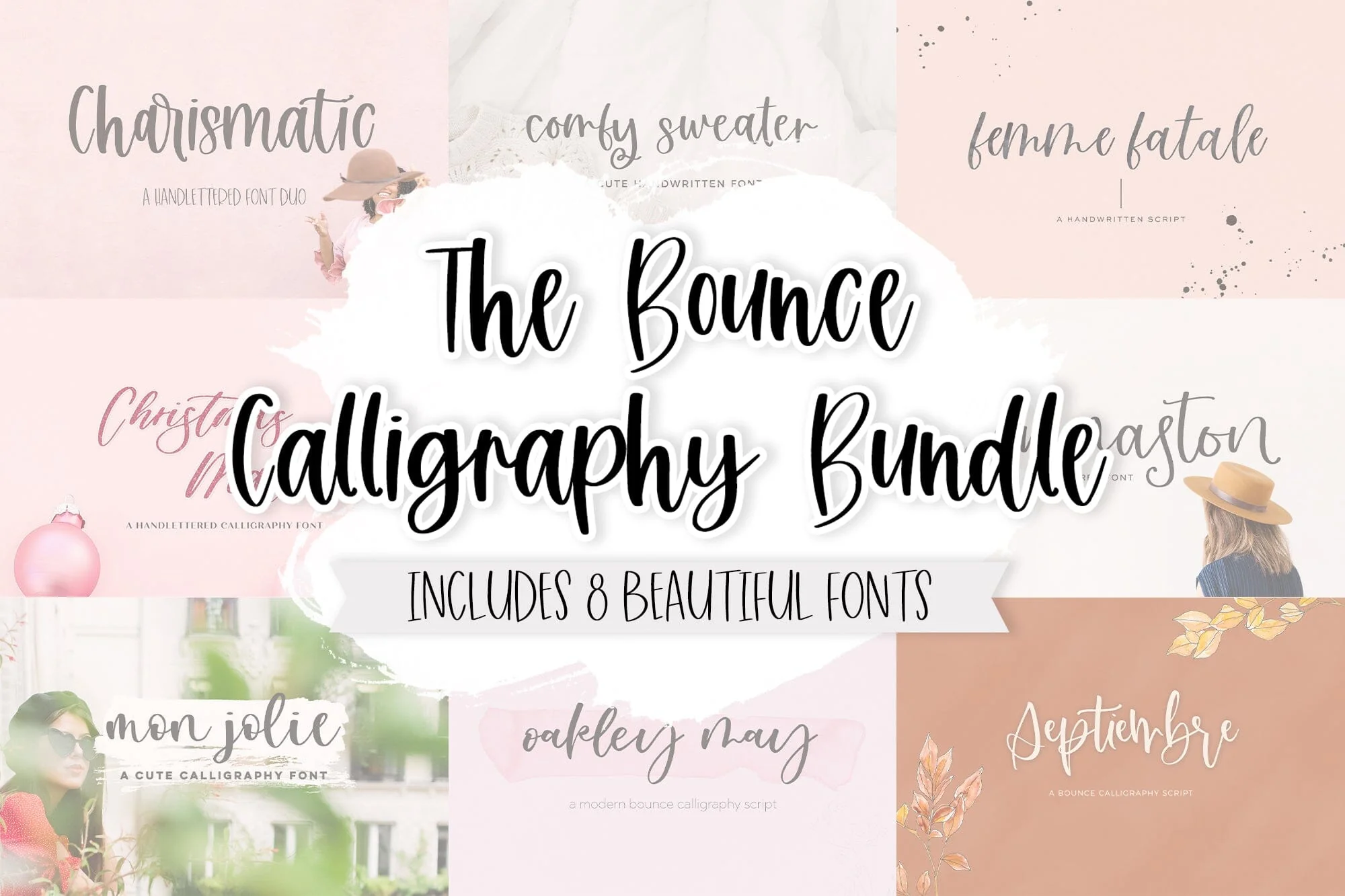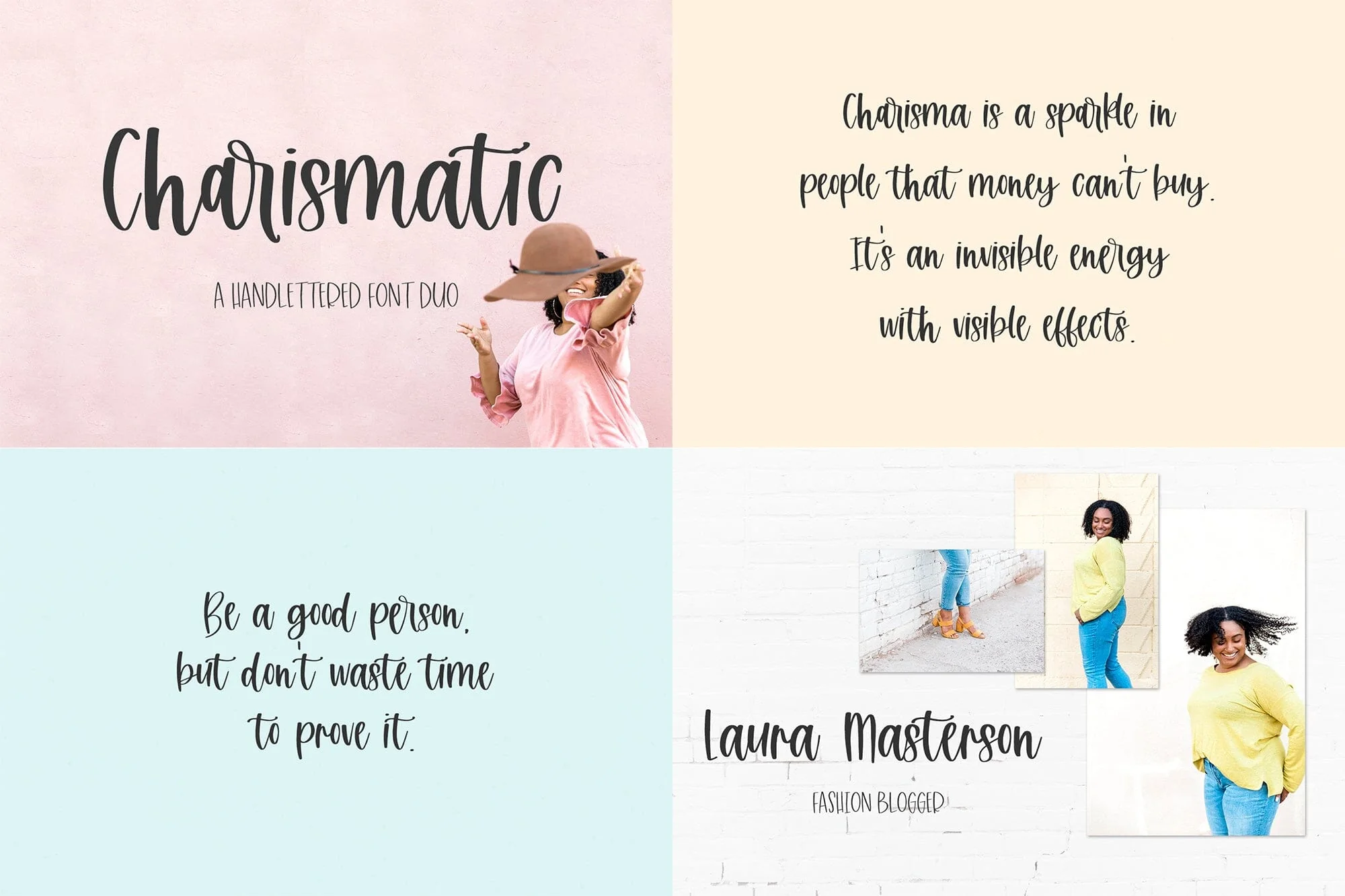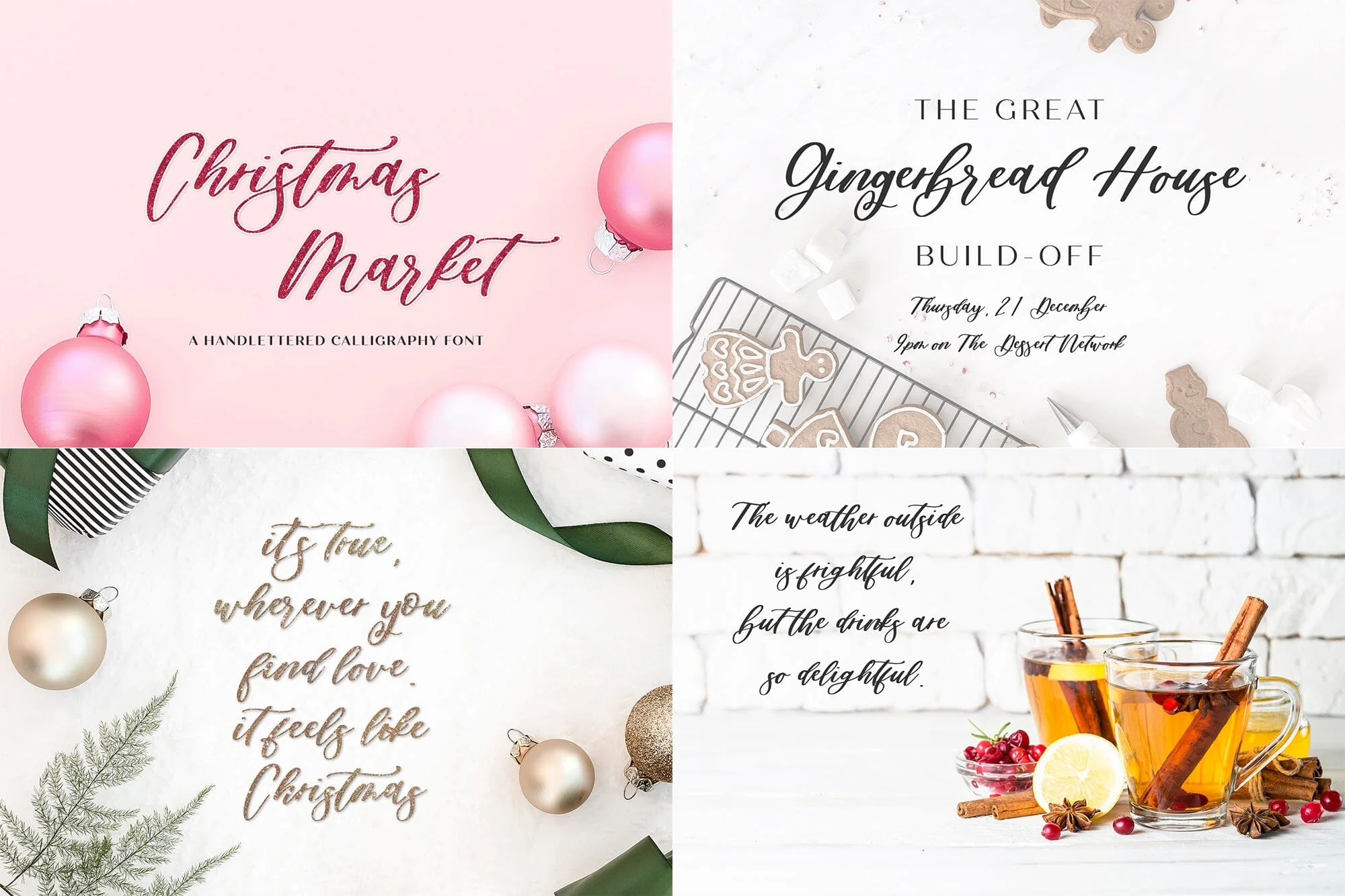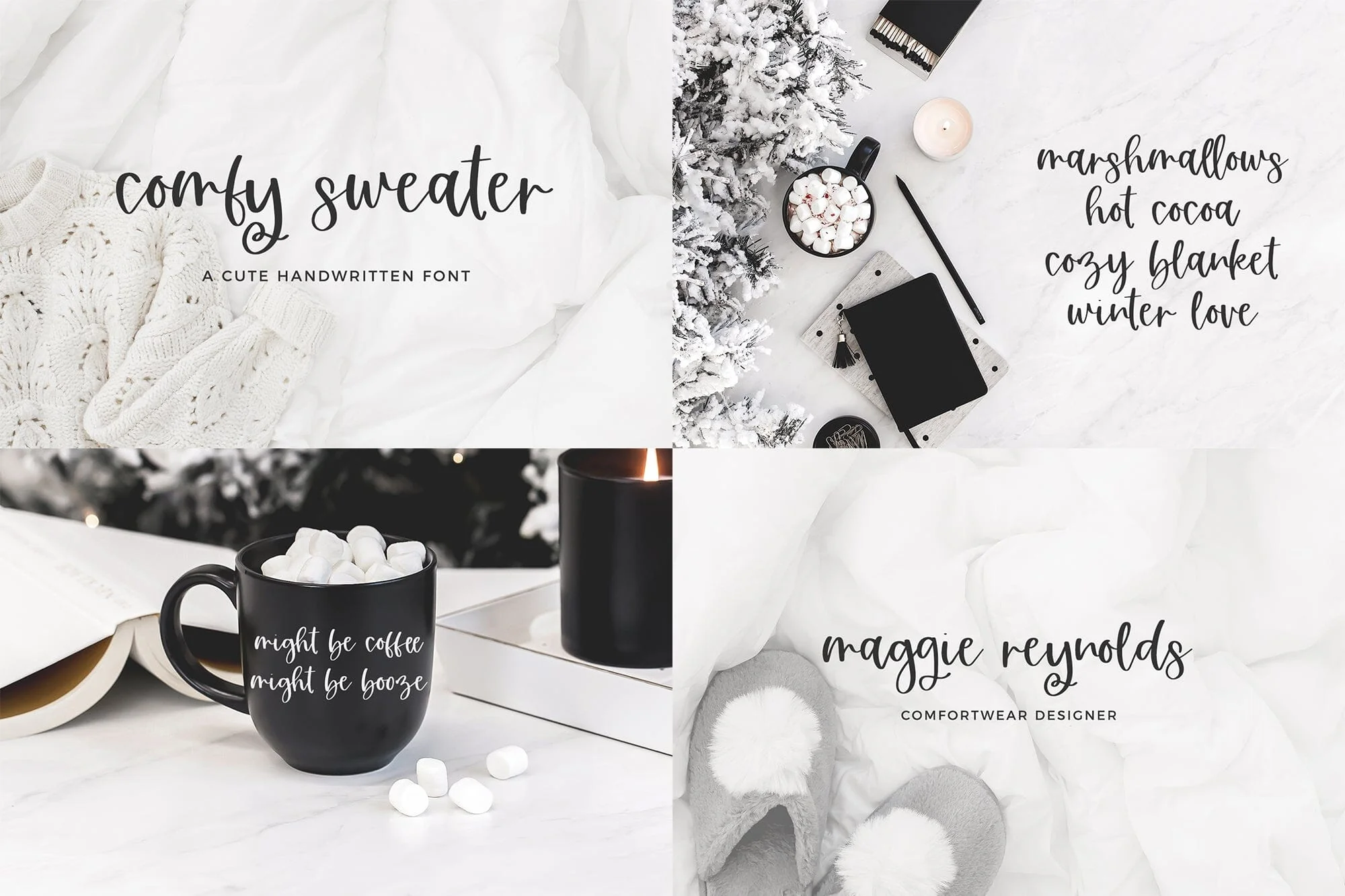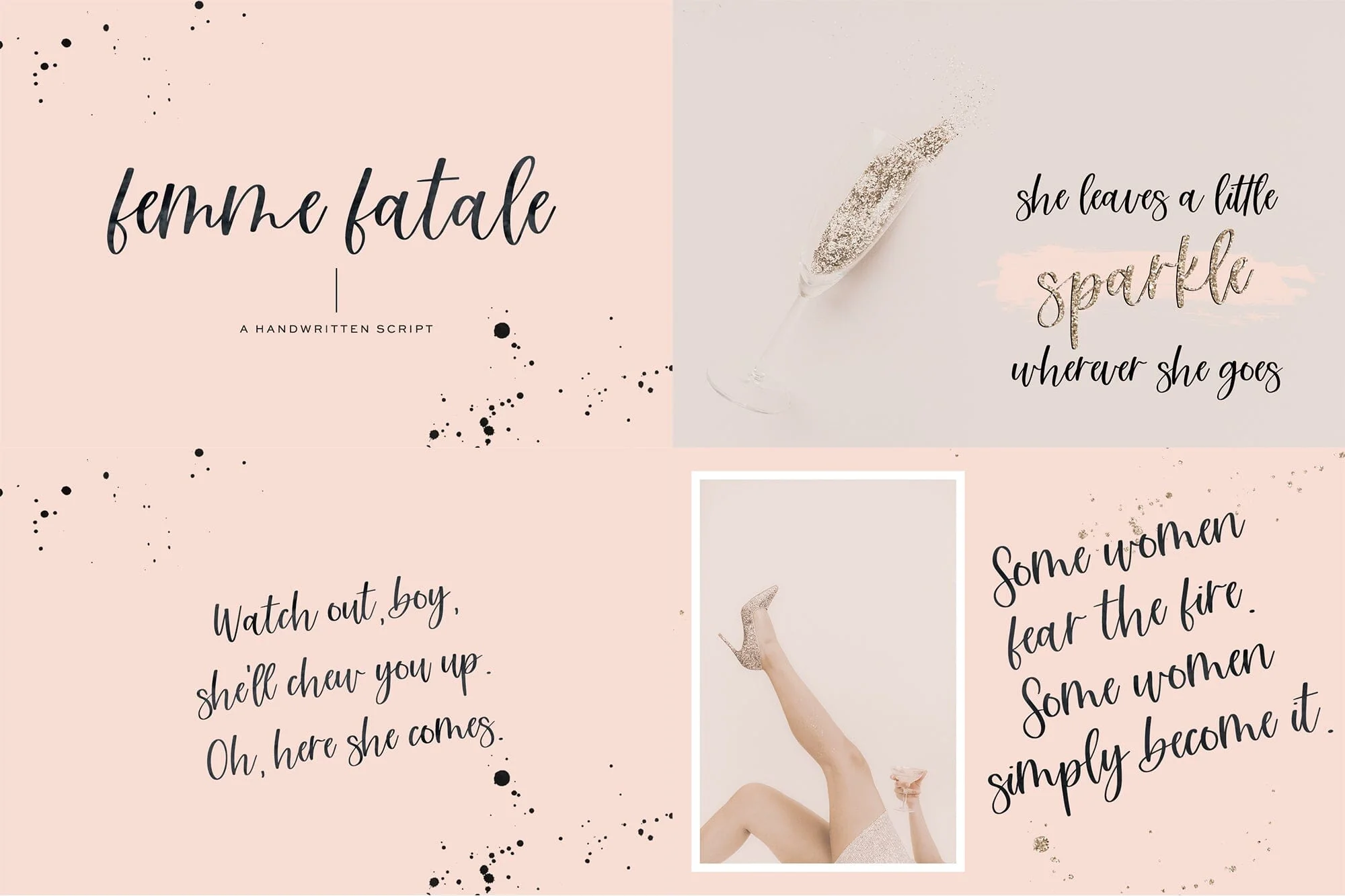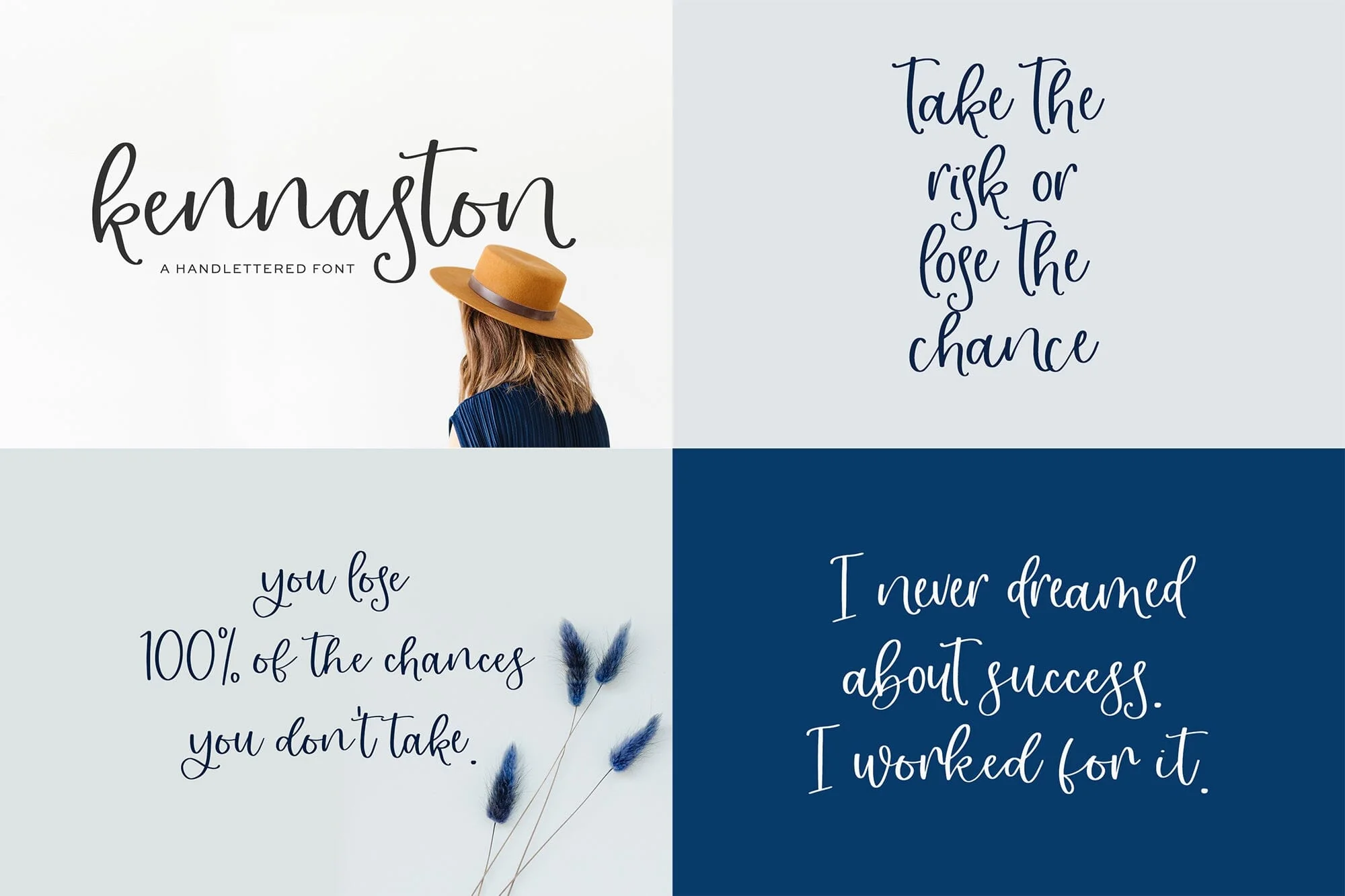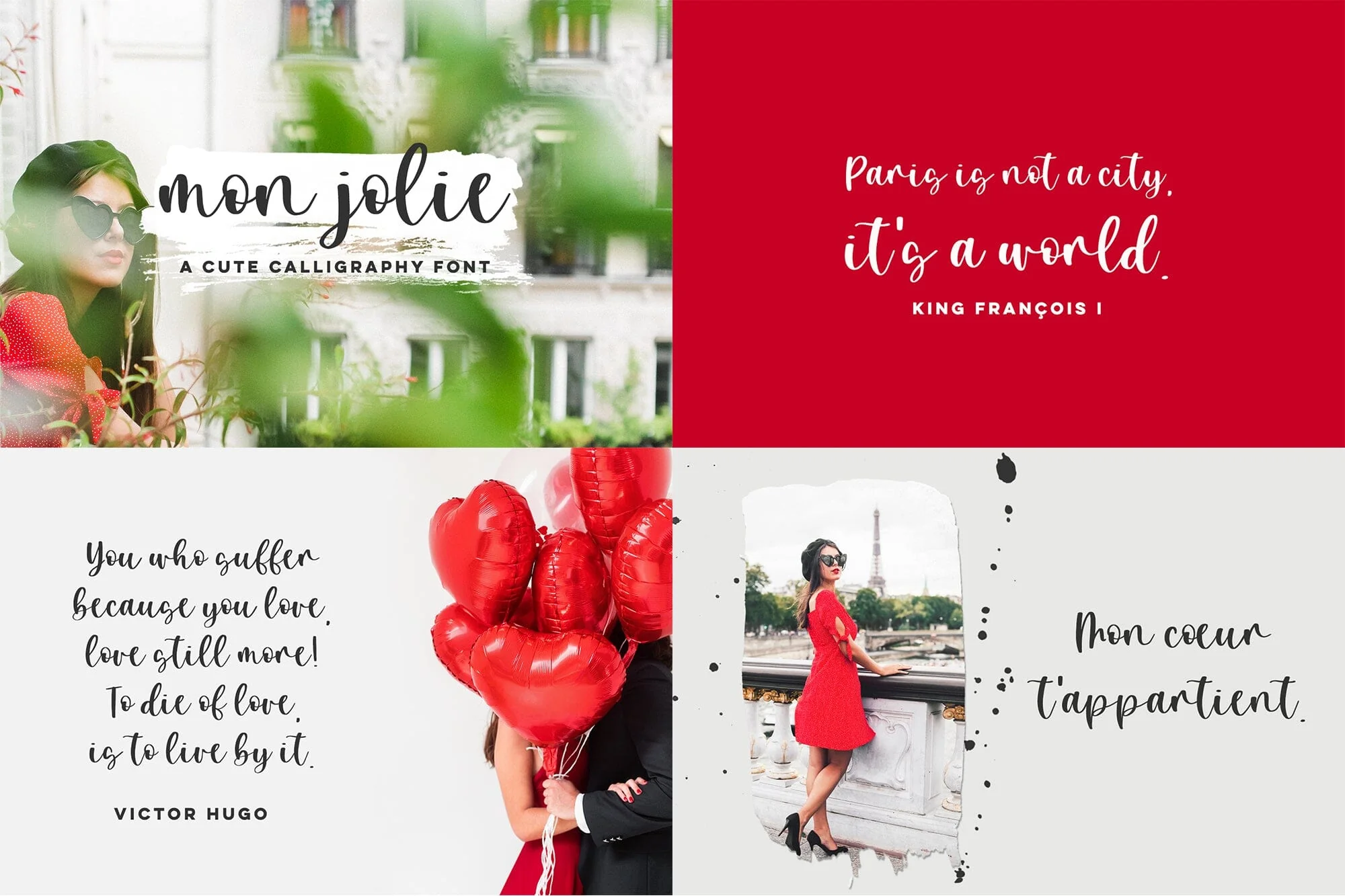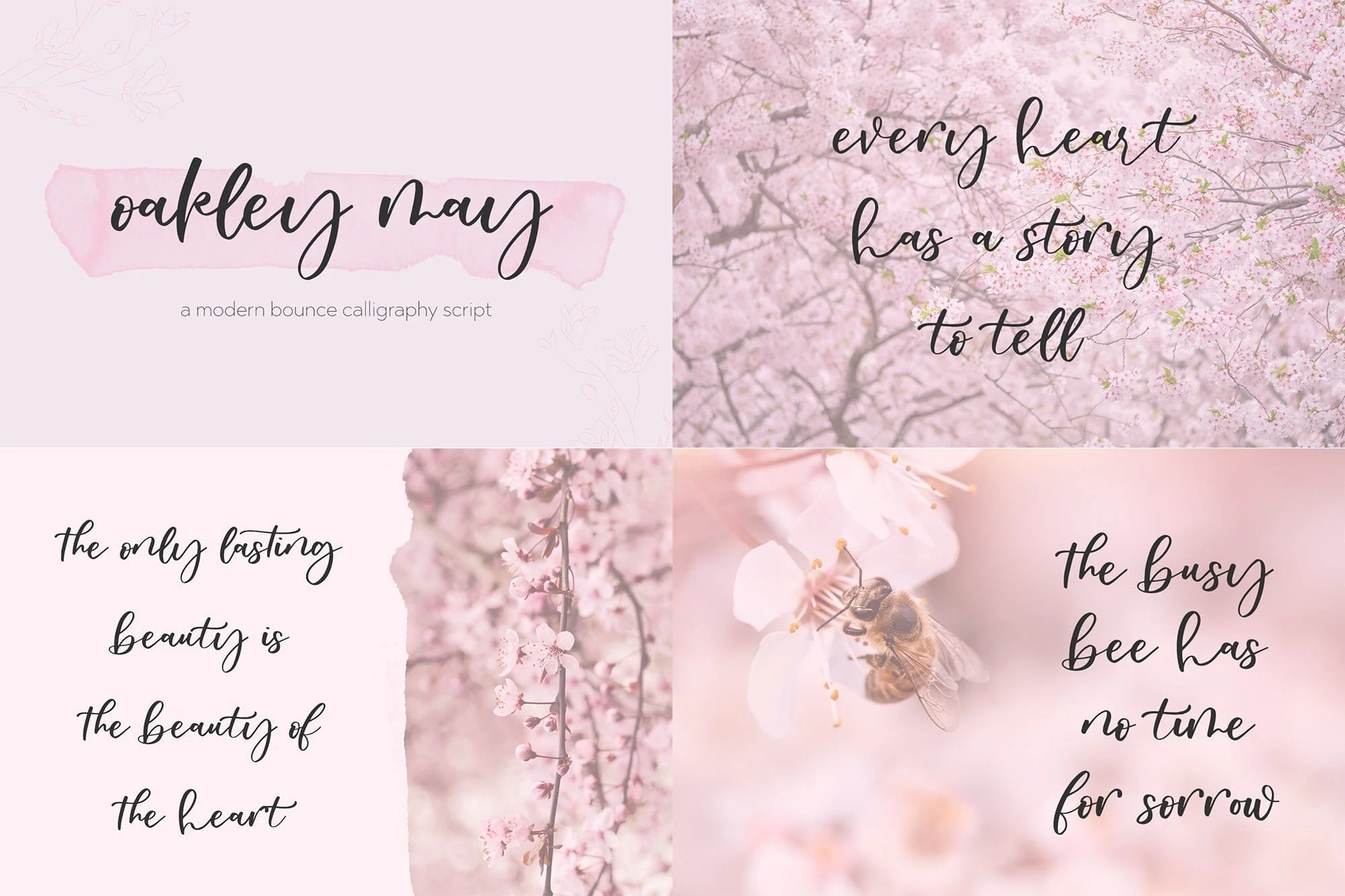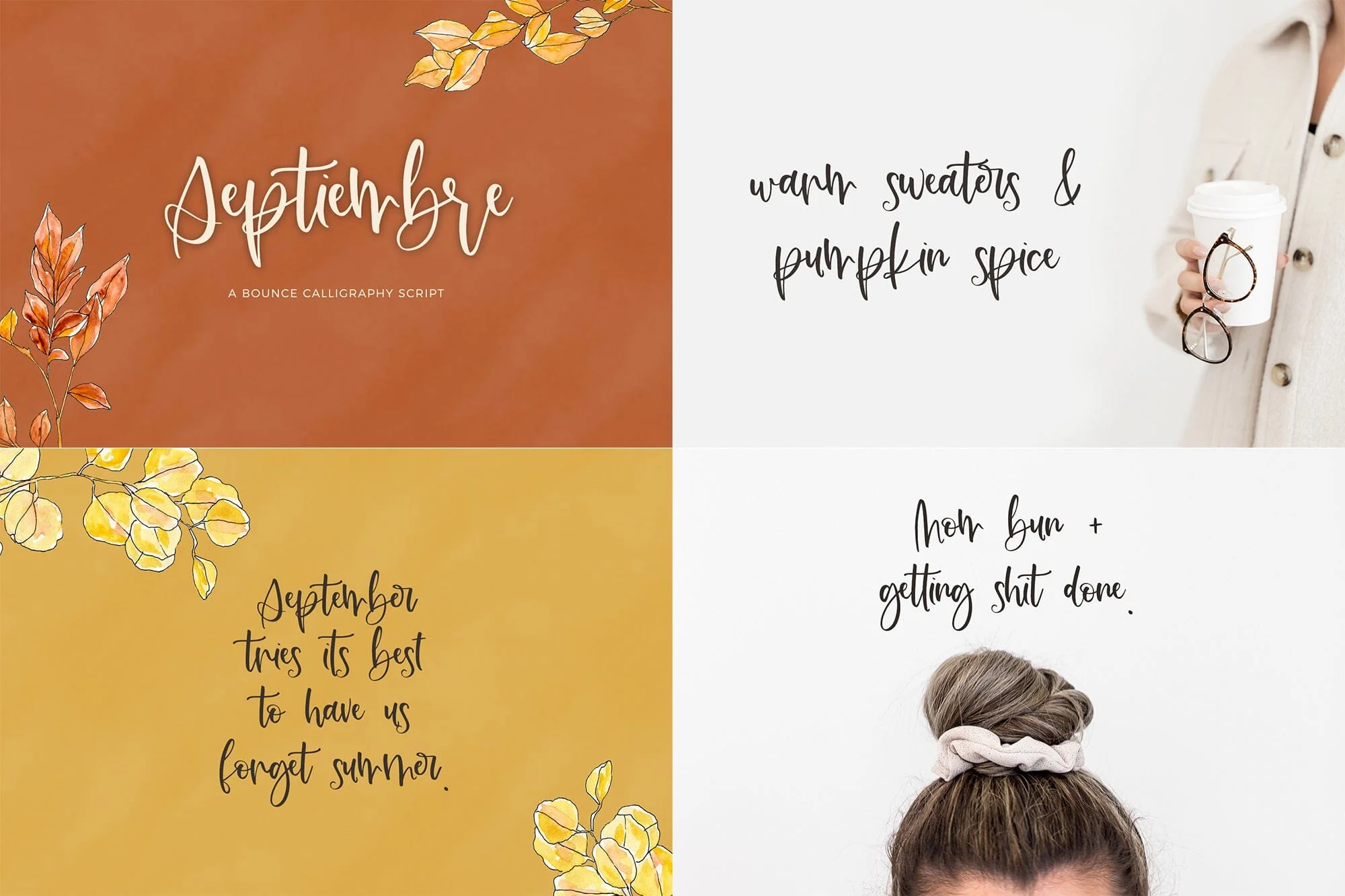
The Bounce Calligraphy Font Bundle
This font bundle is everything that a calligraphy lover needs! Enjoy 8 fonts in the bounce calligraphy style, sure to give your project the upbeat, happy feel that it needs. All handlettered, these fonts will be perfect for logos & branding, website elements, quote graphics, and crafting projects on your Cricut or Silhouette machine!
This bundle includes:
- Kennaston Script (includes 26 alternate characters)
- Oakley May Script (includes 7 alternate characters & 2 ligatures)
- Comfy Sweater Script (includes 4 alternate characters & 13 ligatures)
- Christmas Market Script (includes 26 alternate characters & 55 ligatures)
- Charismatic Script + Sans Duo (script includes 8 ligatures)
- Mon Jolie Script
- Femme Fatale Script (includes 1 alternate character & 13 ligatures)
- Septiembre Script (includes 32 alternate characters & 5 ligatures)